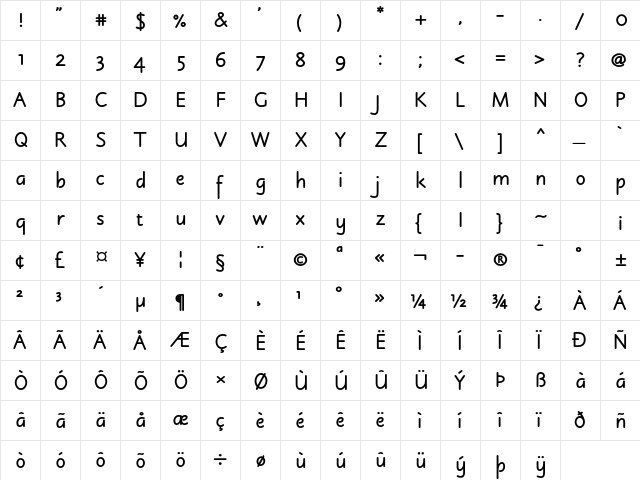
Julius Primary Std Black
Design Context for Julius Primary Std Typeface
Julius Primary Std is a composed and adaptable typeface that performs quietly and consistently across a wide range of design contexts.
Originally released in 1999, this typeface is available in OpenType (OTF) format.